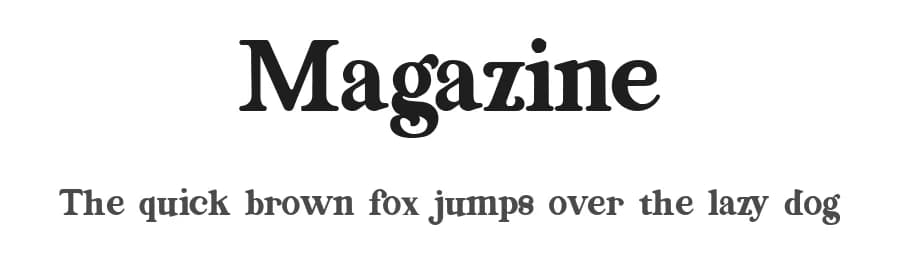
About Magazine Font
Magazine Specifications
| Font Family | Magazine |
| Full Name | Magazine Bold |
| PostScript Name | Magazine-bold |
| Designer | Yesaya Amnestian |
Magazine supports 89 languages.
Magazine Font is a versatile serif font that works for both headings and body text. Pair it with a contrasting sans-serif or slab serif font to add visual interest and a clear distinction between titles and body copy.
Magazine Font
by Nestype